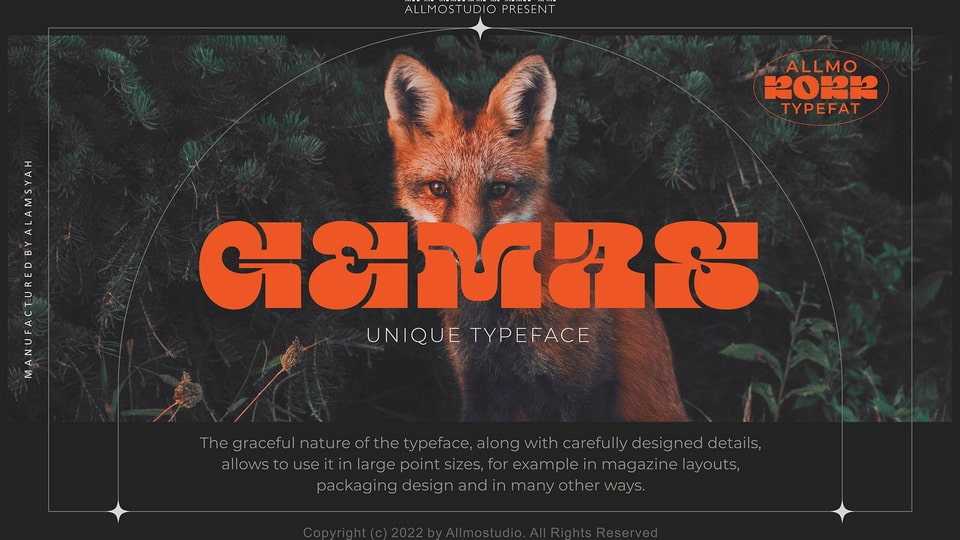
Download Gemas font, a wide display typeface that looks incredible and has attractiveness when you see it. Each letter shape has been designed to have a character that is easily recorded in the mind.
Designer: Allmo Studio